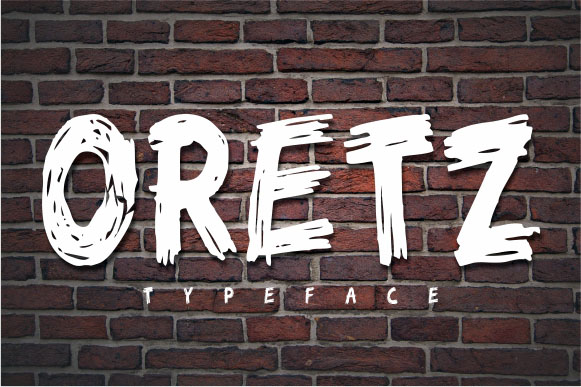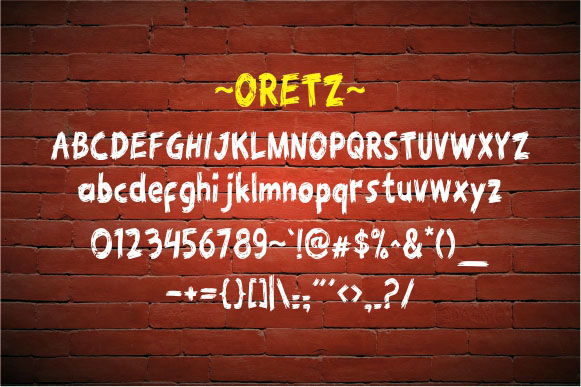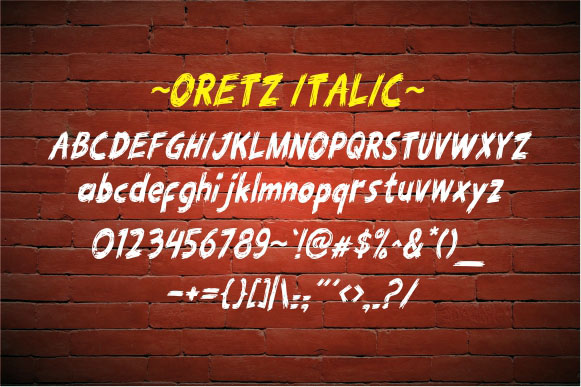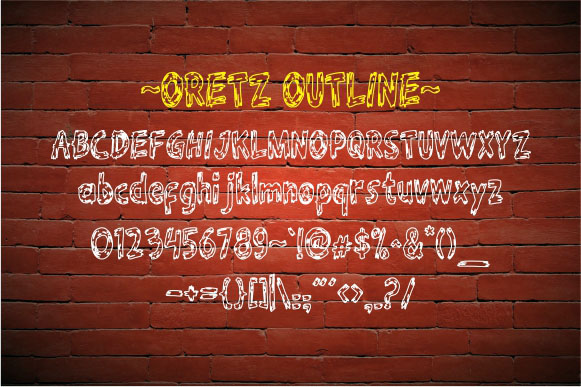
Oretz Font
About Oretz Font
Oretz is a gorgeous brush stroke font that can give your designs an intentionally imperfect appeal. This adorable typeface is available in 3 styles, making it perfect for retro, nature-oriented or alternative designs.